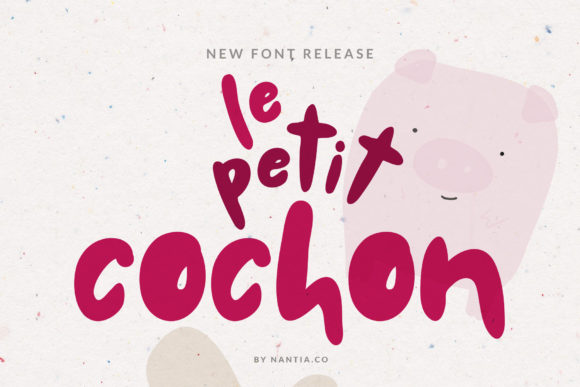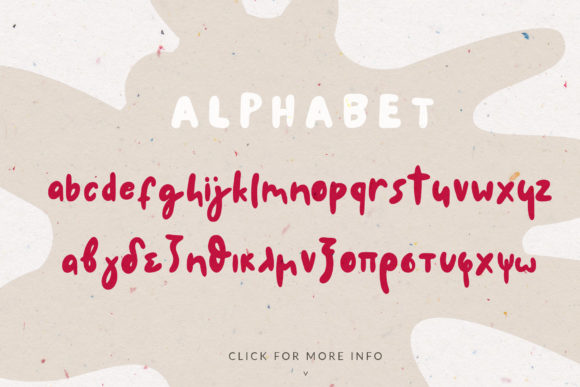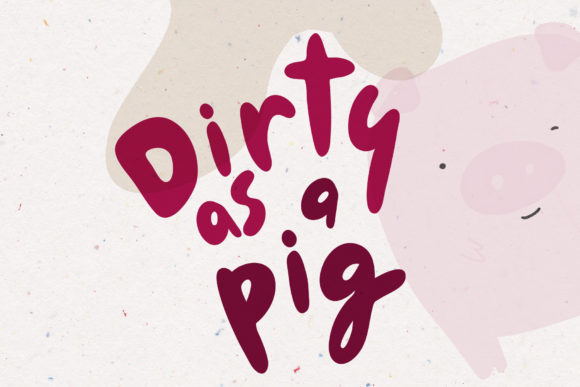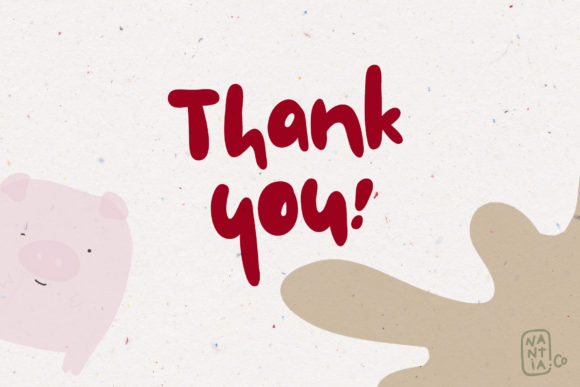
Le Petit Cochon Font
About Le Petit Cochon Font
Le Petit Cochon is an adorable and chubby script font with a unique style. It will turn any design idea into a true standout!